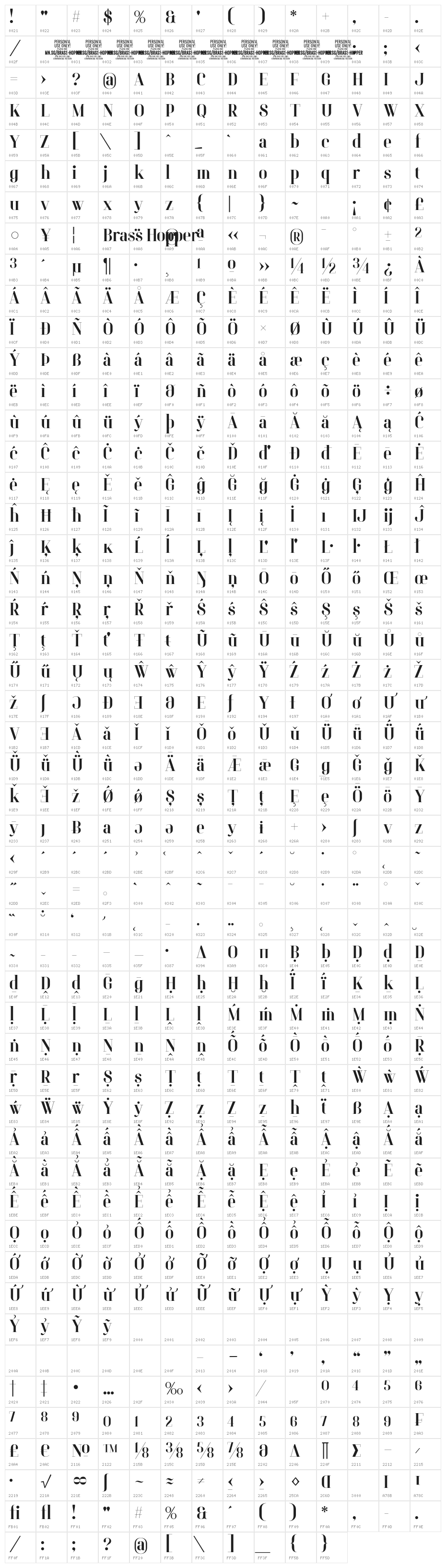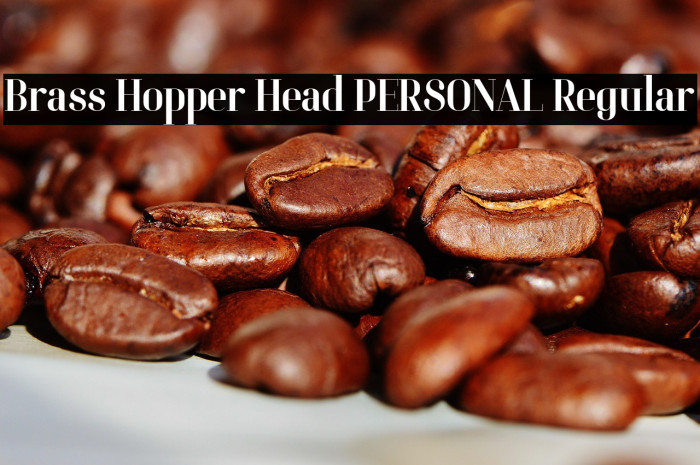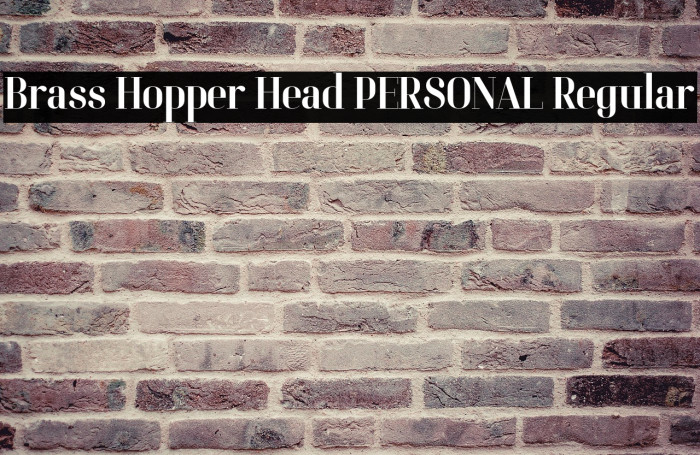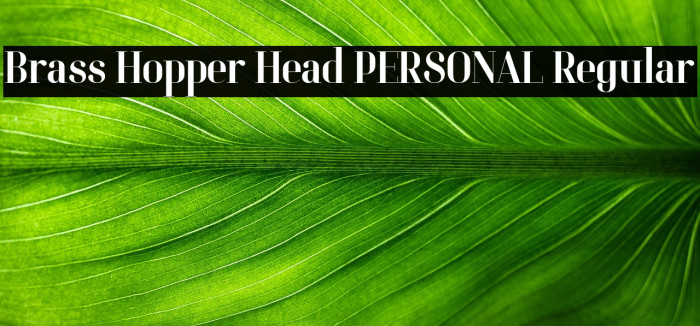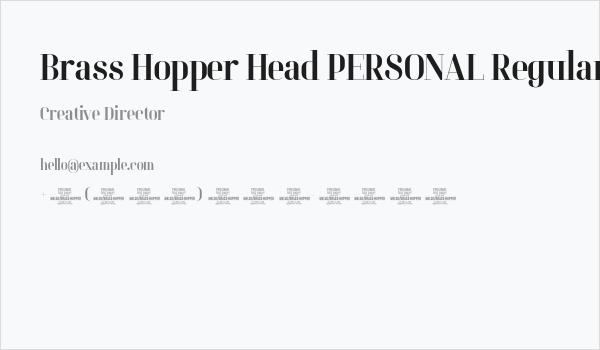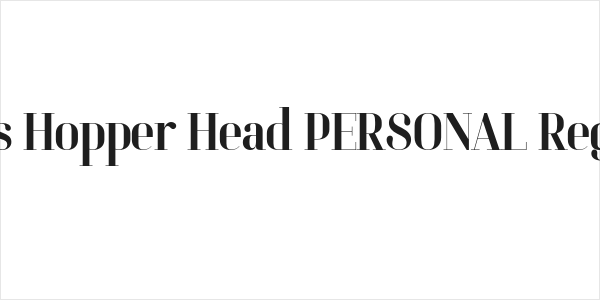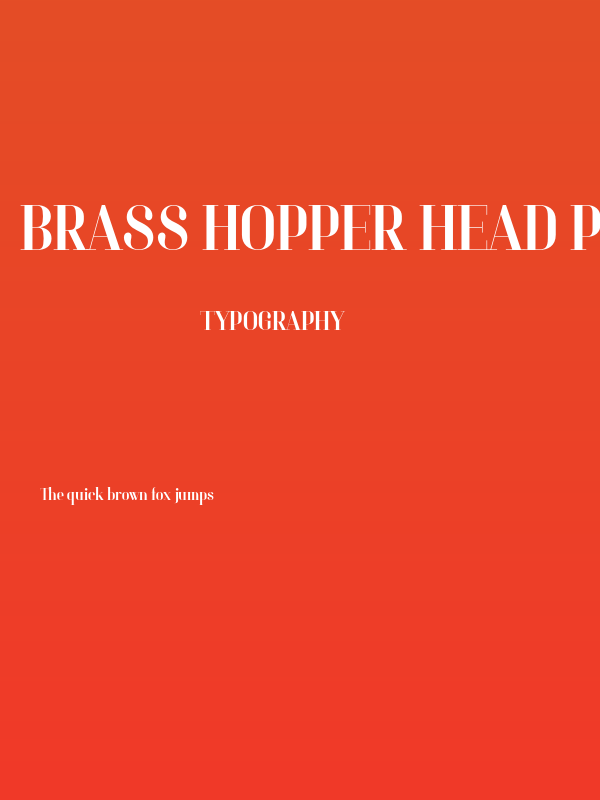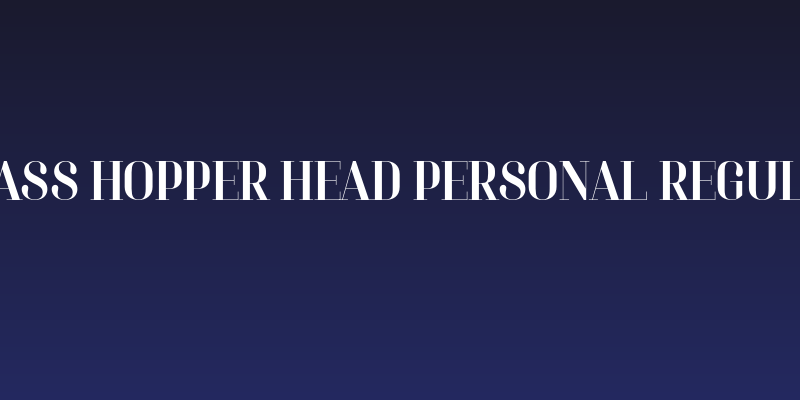
Brass Hopper Head PERSONAL Regular Font
Brass Hopper Head PERSONAL Regular Description
This font features a striking and bold design with high contrast between thick and thin strokes, giving it a dramatic and elegant appearance. The uppercase letters are tall and commanding, while the lowercase letters maintain a consistent style with a slightly more subdued presence. The serifs are sharp and pronounced, adding to the font's sophisticated and classic feel. The numerals and special characters are designed to match the overall aesthetic, ensuring a cohesive look across all text elements. This font is ideal for making a strong visual impact, whether used in headlines, logos, or other prominent text applications.
| Proposed Projects | Ideal for luxury branding, editorial headlines, book covers, and high-end product packaging. |